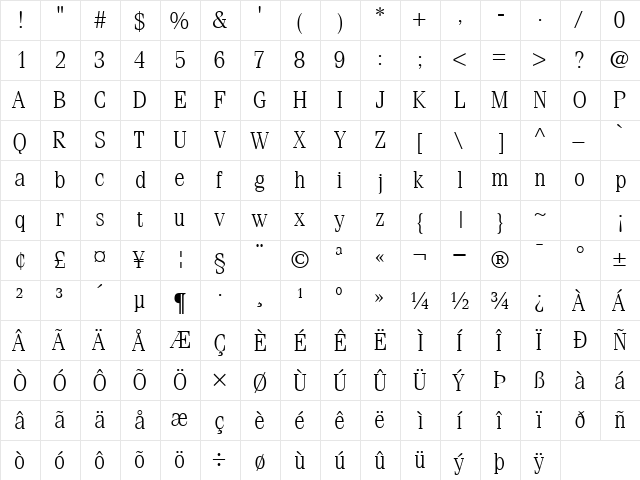
CompendiumLightSSK Regular Font Preview
CompendiumLightSSK Regular
CompendiumLightSSK Regular Font Details
Design Context for CompendiumLightSSK Typeface
CompendiumLightSSK is a composed and adaptable typeface that performs quietly and consistently across a wide range of design contexts. The delicate stroke weight brings airiness and refinement to layouts.